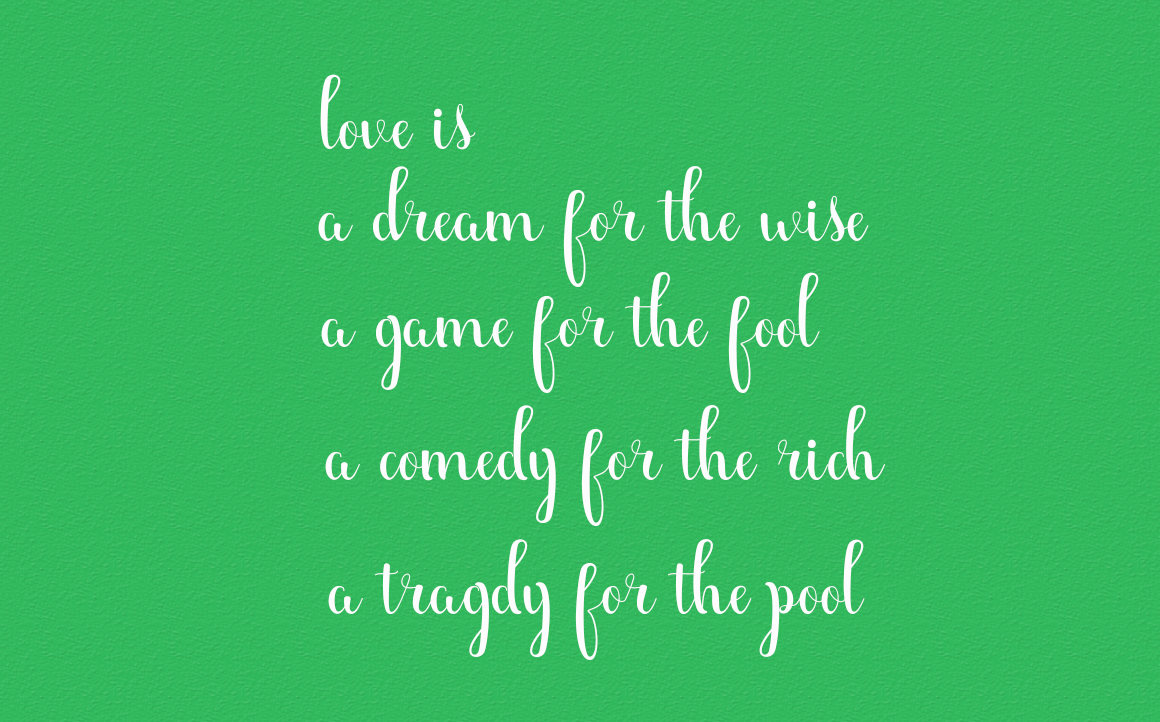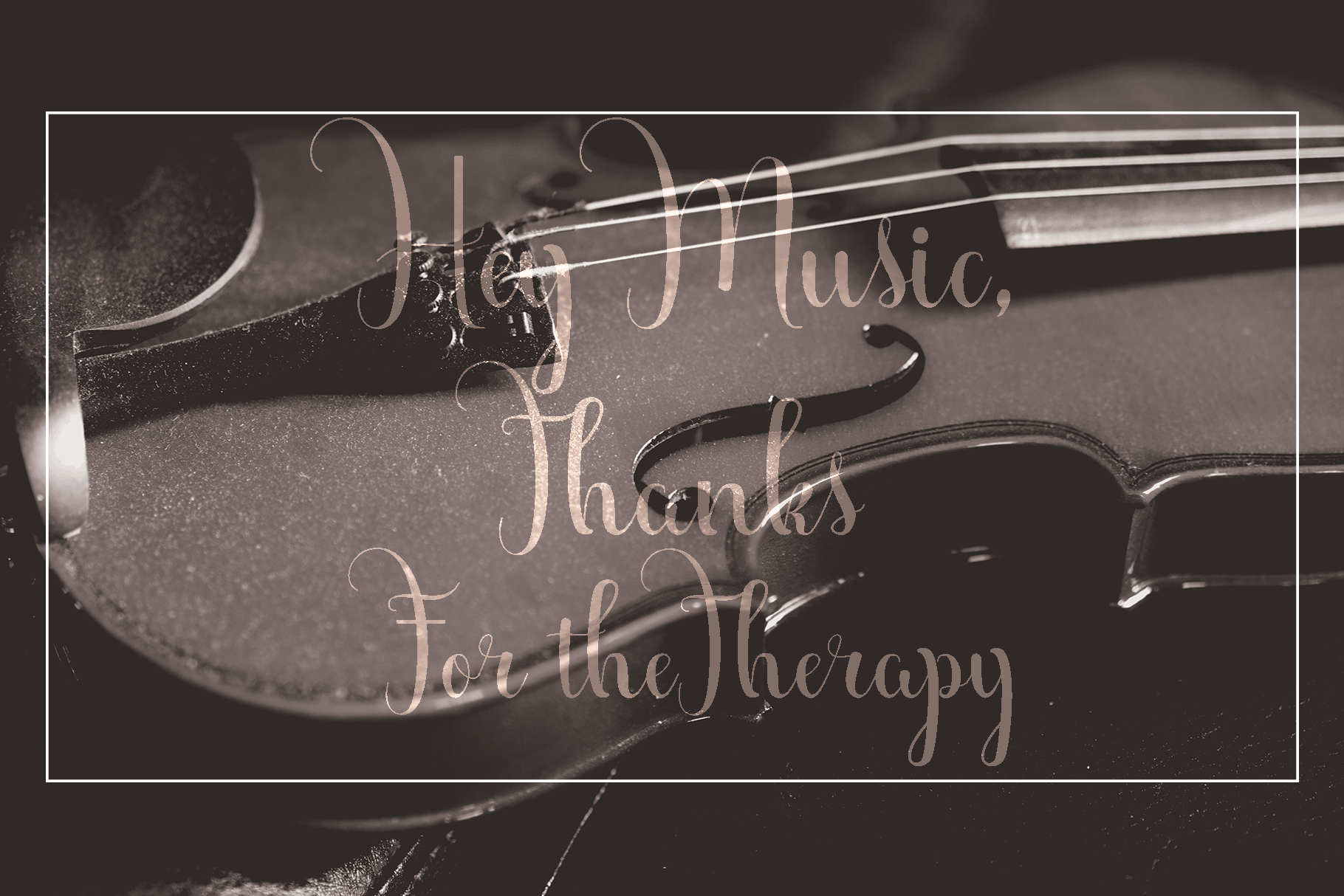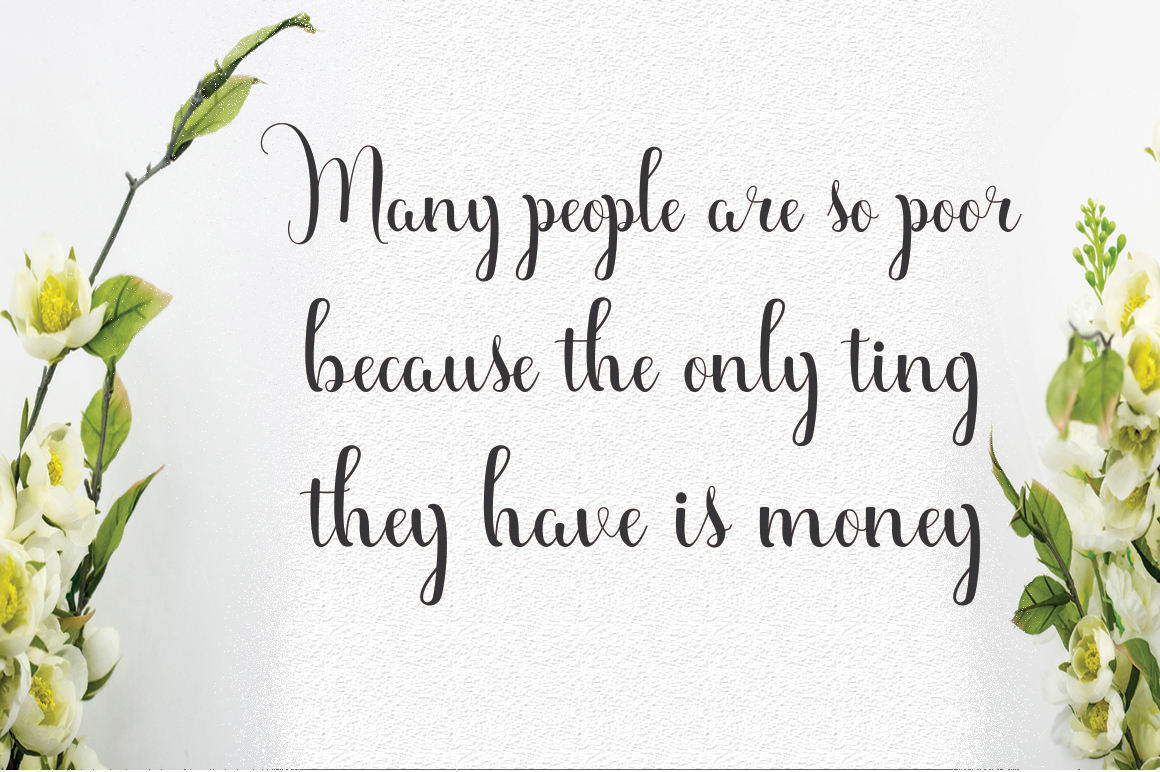
Introduction to Malemdiwa Font
Malemdiwa is a stunning handwritten script, suitable for a wide range of uses.
This font was designed to give your designs a gorgeous and feminine appeal with its friendly and high contrast structure .
Key Features of Malemdiwa Font
Why Choose Malemdiwa Font?
Malemdiwa Font offers exceptional quality and versatility, making it a valuable addition to your design toolkit. Whether you’re creating for personal projects or commercial use, Malemdiwa Font delivers professional results.